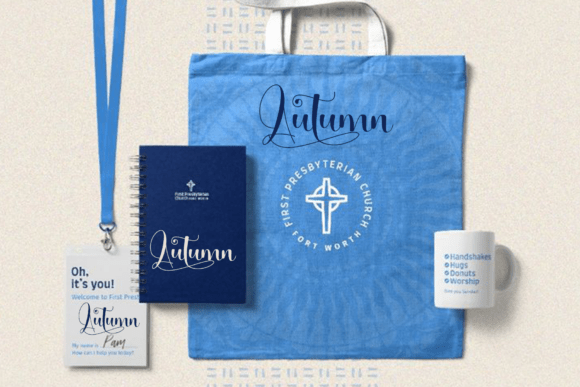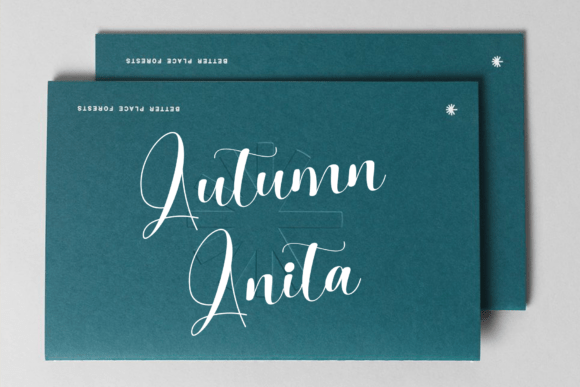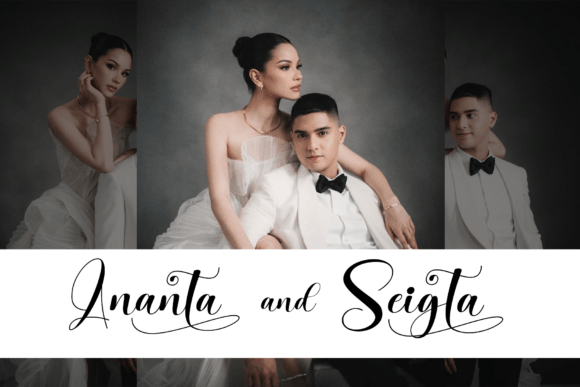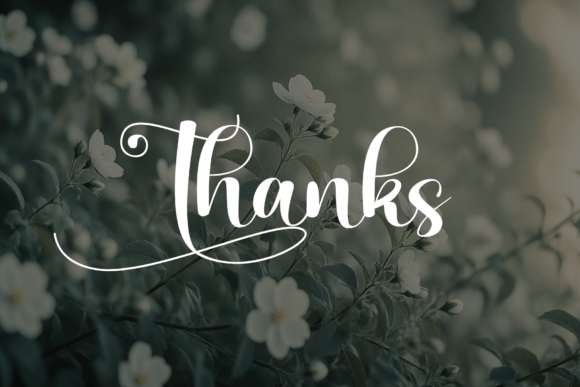
Bringing Your Designs to Life: The Magic of Animate Font
As a designer, have you ever found yourself pouring over a blank canvas, desperately searching for the perfect font to bring your vision to life? You’re not alone. We’ve all been there, and it’s moments like these that make us appreciate the beauty of a well-crafted font.
| 👤 Author | Sansana |
Enter the Animate Font, a stunning handwritten font designed to make your designs pop. With its unique and beautiful touch, this font is the perfect choice for creating eye-catching logos, branding, and quotes that will leave a lasting impression. Whether you’re a seasoned pro or just starting out, the Animate Font is a valuable addition to any designer’s toolkit.
- Animated Effects: Unique animated effects, such as morphing, pulsing, and breathing, can be applied to individual characters or entire text strings.
- Customization Options: Allows designers to adjust animation speed, duration, and timing to create a wide range of effects and styles.
- Color and Texture Support: Supports color and texture overlays, enabling designers to add depth and visual interest to animated text.
Designer Review: Animate Font
As a designer, I was excited to try out the Animate Font, a font that combines typography with animation. Here’s my honest review:
- The unique blend of typography and animation is a game-changer for designers looking to add an extra layer of visual interest to their projects.
- The font is highly customizable, allowing users to adjust the animation speed, direction, and even add their own custom animations.
- The Animate Font is compatible with a wide range of platforms and devices, making it a great choice for designers who need a versatile font.
- The font can be quite resource-intensive, which may cause issues on lower-end devices or slow computers.
- The customization options can be overwhelming, especially for designers who are new to animation or typography.
- The font may not be suitable for all types of projects, such as print materials or simple web designs.
Overall, I was impressed with the Animate Font’s potential for creativity and visual interest. While it has some limitations, the benefits far outweigh the drawbacks for designers who are looking to push the boundaries of typography and animation.
Some common use cases for animating fonts include:
– Creating eye-catching social media posts
– Designing engaging presentations
– Adding visual interest to websites and blogs
– Creating animated logos and branding elements
– Experimenting with new and creative ways to communicate messages.